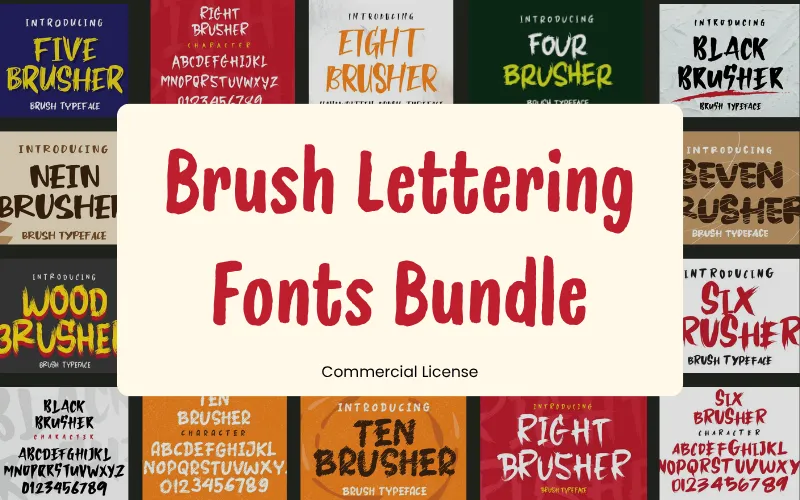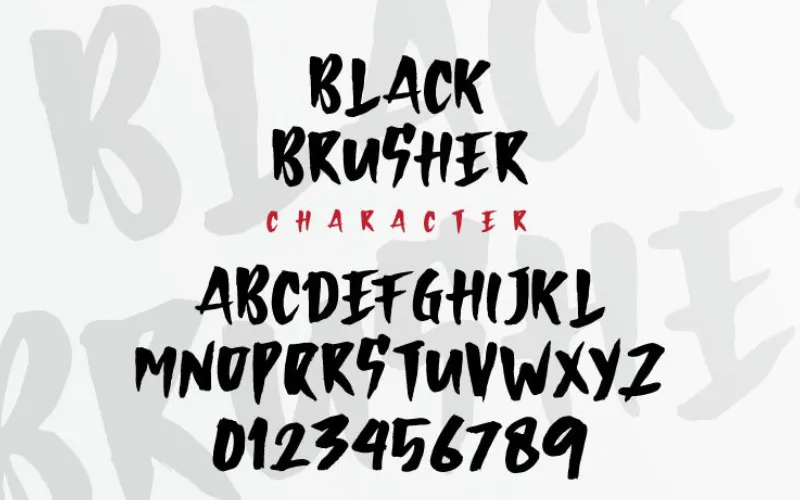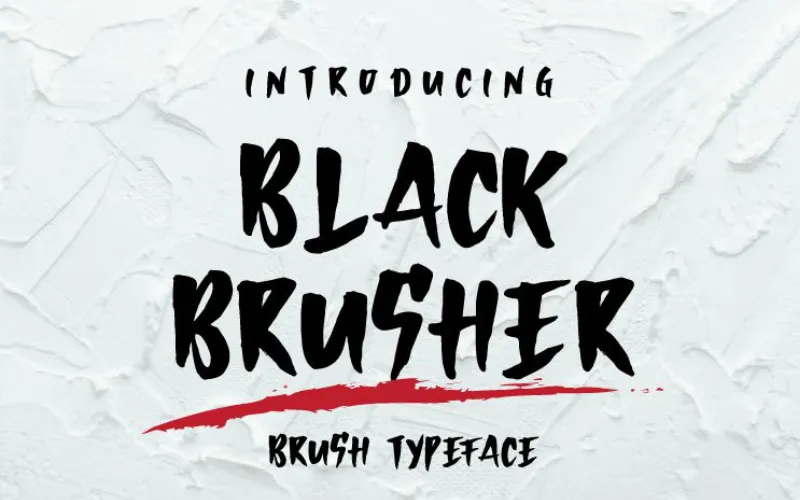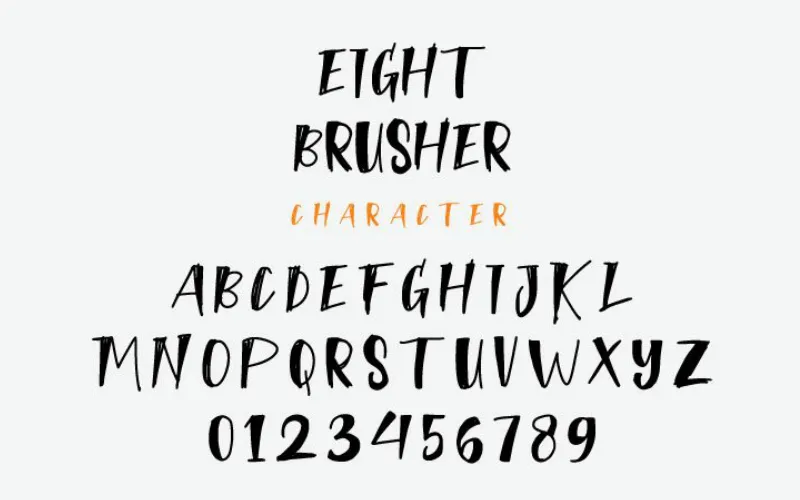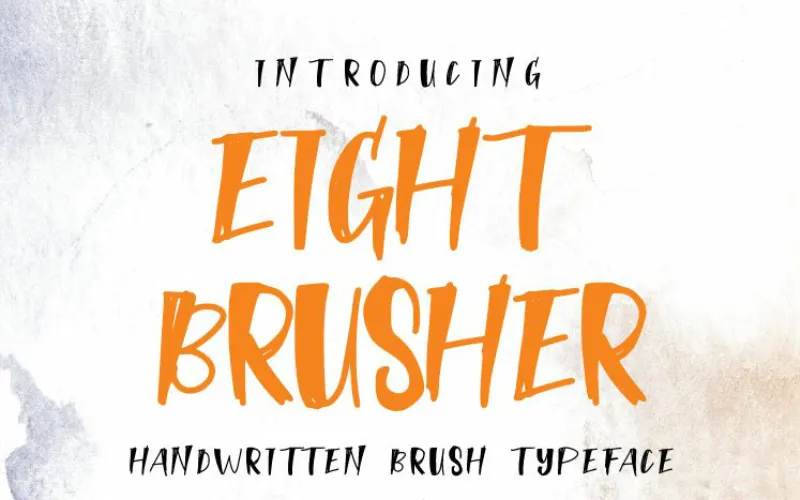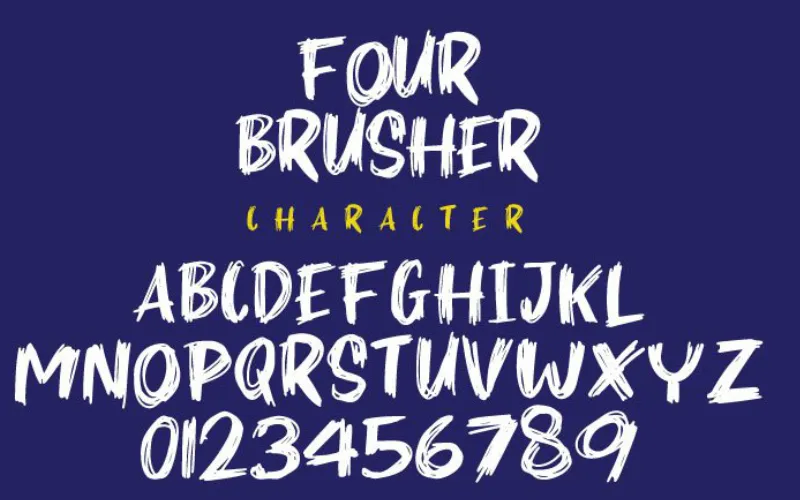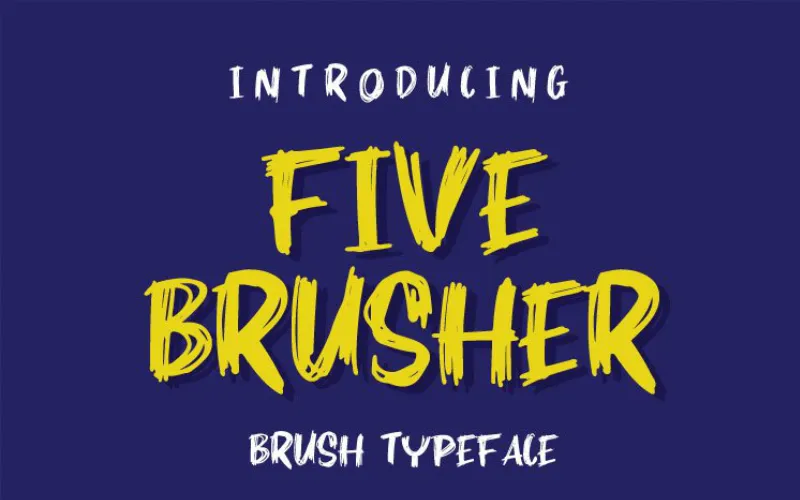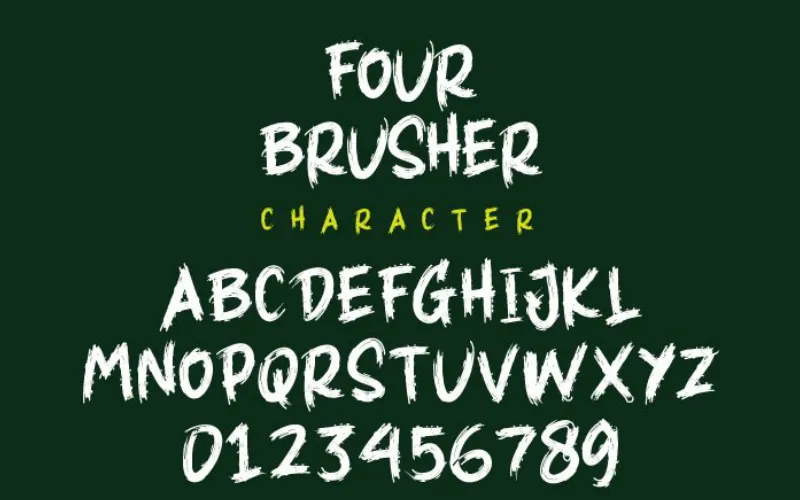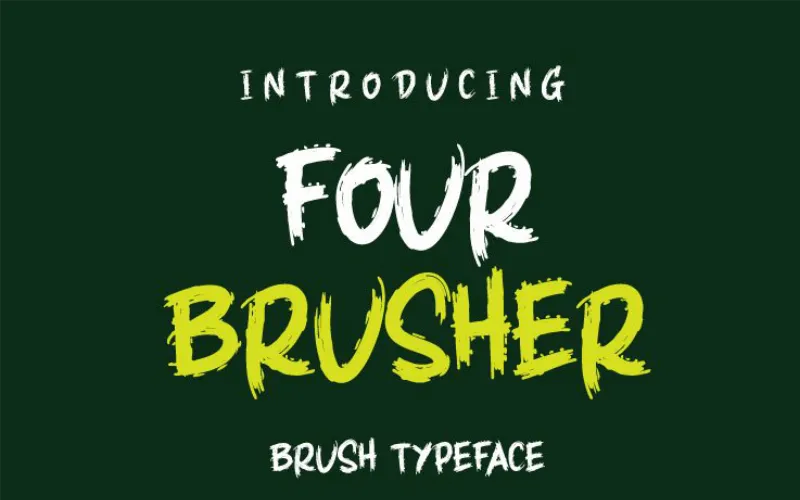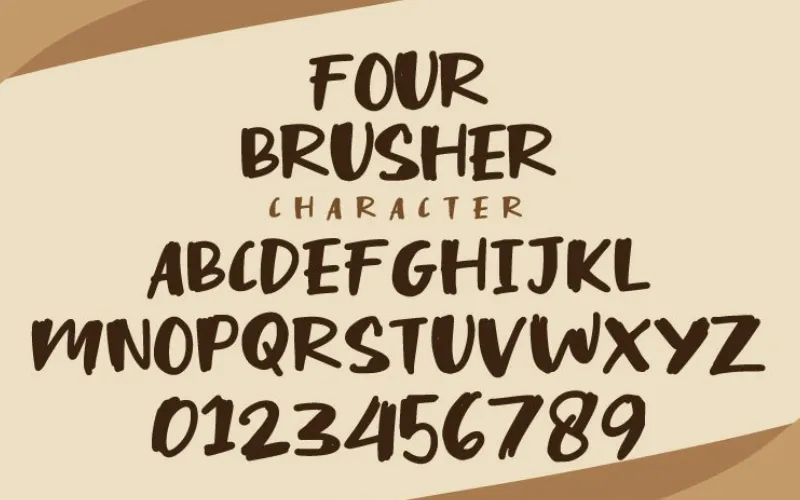
• Access 10 unique brush lettering fonts for versatile creative projects.
• Upgrade plain text into impactful visual statements.
Creating standout headlines shouldn’t be difficult. With the right fonts, you can turn a simple text into a powerful visual statement. That’s why DealFuel brings you the –
Brush Lettering Fonts Bundle
These unique fonts include styles ranging from smooth hand brush fonts to textured grunge brush fonts.
They combine bold strokes with organic textures, and easily solve the common problem of flat, lifeless typography.
This Brush Lettering Fonts Bundle Includes:
• Black Brusher Font – A bold brush font for striking headlines.
• Eight Brusher Font – A smooth brush font for modern designs.
• Five Brusher Font – A natural brush font for casual styles.
• Four Brusher Font – A textured brush font for added depth.
• Nein Brusher Font – A rough brush font for grunge looks.
• Right Brusher Font – A clean brush font for stylish branding.
• Seven Brusher Font – A dynamic brush font for eye-catching layouts.
• Six Brusher Font – A balanced brush font for versatile use.
• Ten Brusher Font – A versatile brush font for creative projects.
• Wood Brusher Font – A rustic brush font for vintage designs.
These Brush Lettering Fonts Help You Create:
• Bold headlines and hero section typography.
• Social media posts, ads, and story graphics.
• Logo designs and brand identity elements.
• T-shirt designs and merchandise prints.
• Posters, flyers, and promotional banners.
• YouTube thumbnails and digital covers.
• Packaging designs with a handcrafted feel.
• Website headers and landing page visuals.
Preview Of The Unique Brush Lettering Fonts:
Black Brusher grunge brush fonts included in the bundle
Full character set for Black Brusher grunge brush font featuring numbers and alphabet.
Eight Brusher hand brush fonts included in the bundle
Eight Brusher hand brush font display showing the complete character set and numbers.
Five Brusher unique brush font included in the bundle
Complete character set and numerals for the Five Brusher unique brush font.
Four Brusher Brush Lettering Font included in the bundle
Character map for Four Brusher Brush Lettering Font including A-Z and 0-9.
Nein Brusher brush font included in the bundle
Alphabet and number display for the Nein Brusher brush font.
Right Brusher hand brush font included in the bundle
Full character set of the Right Brusher hand brush font including numbers.
Seven Brusher unique brush font included in the bundle
Complete alphabet and numerical set for Seven Brusher unique brush font.
Six Brusher grunge brush font included in the bundle
Full character map for the Six Brusher grunge brush font.
Ten Brusher brush font included in the bundle
Numerical and alphabetical character set for Ten Brusher brush font.
Wood Brusher Brush Lettering Font included in the bundle